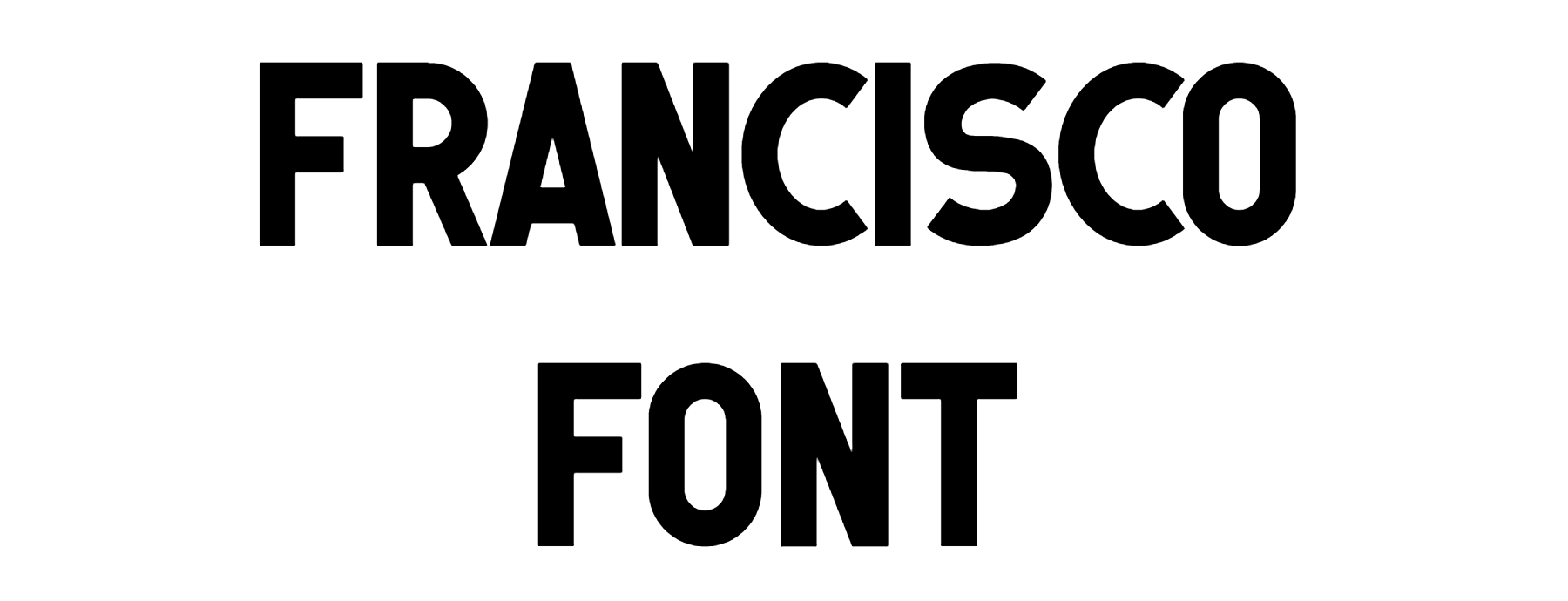
Francisco
Francisco is a sans serif font made by Kong Font (2024). It has a clean, no-nonsense look that fits modern brands and websites. You can download it for free and test it with your own words in the preview above.
What You Can Type With Francisco
With complete upper and lowercase letters and all ten digits, Francisco is ready for real wording, not just a single headline. Everyday marks like &, !, ? and @ are there too. Thanks to its accented letters, it also works for Spanish, French, German, Portuguese and Italian, not just English.
Where Francisco Works Best
Designers usually reach for fonts like Francisco when they're making websites, app screens and clean logos. It works for headings and body text alike. If the download has several weights, use a heavier one for titles and a lighter one for paragraphs.
Does Francisco support accented letters?
Yes. Francisco includes the accented letters needed for Spanish, French, German, Portuguese and Italian, so it works for more than just English.